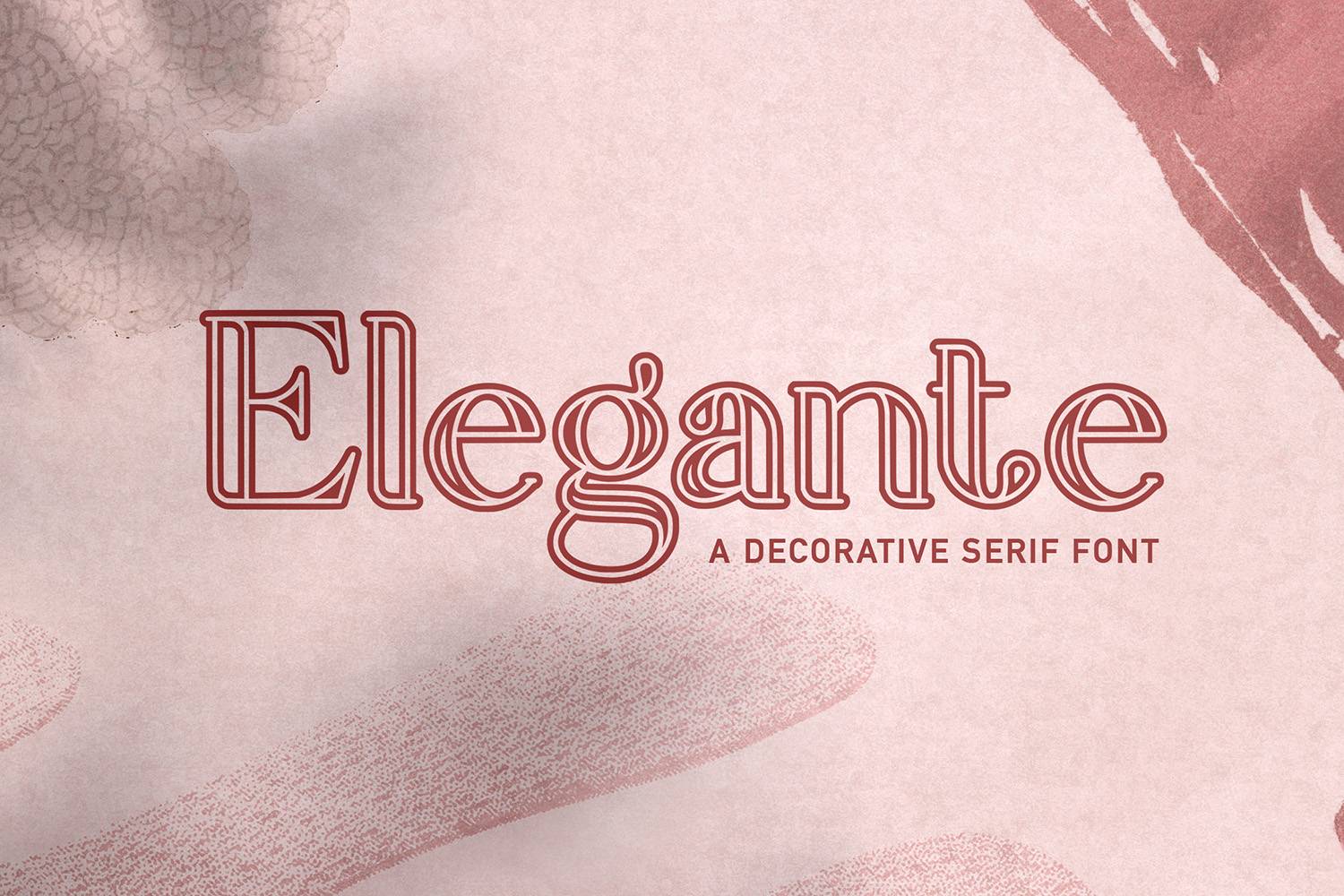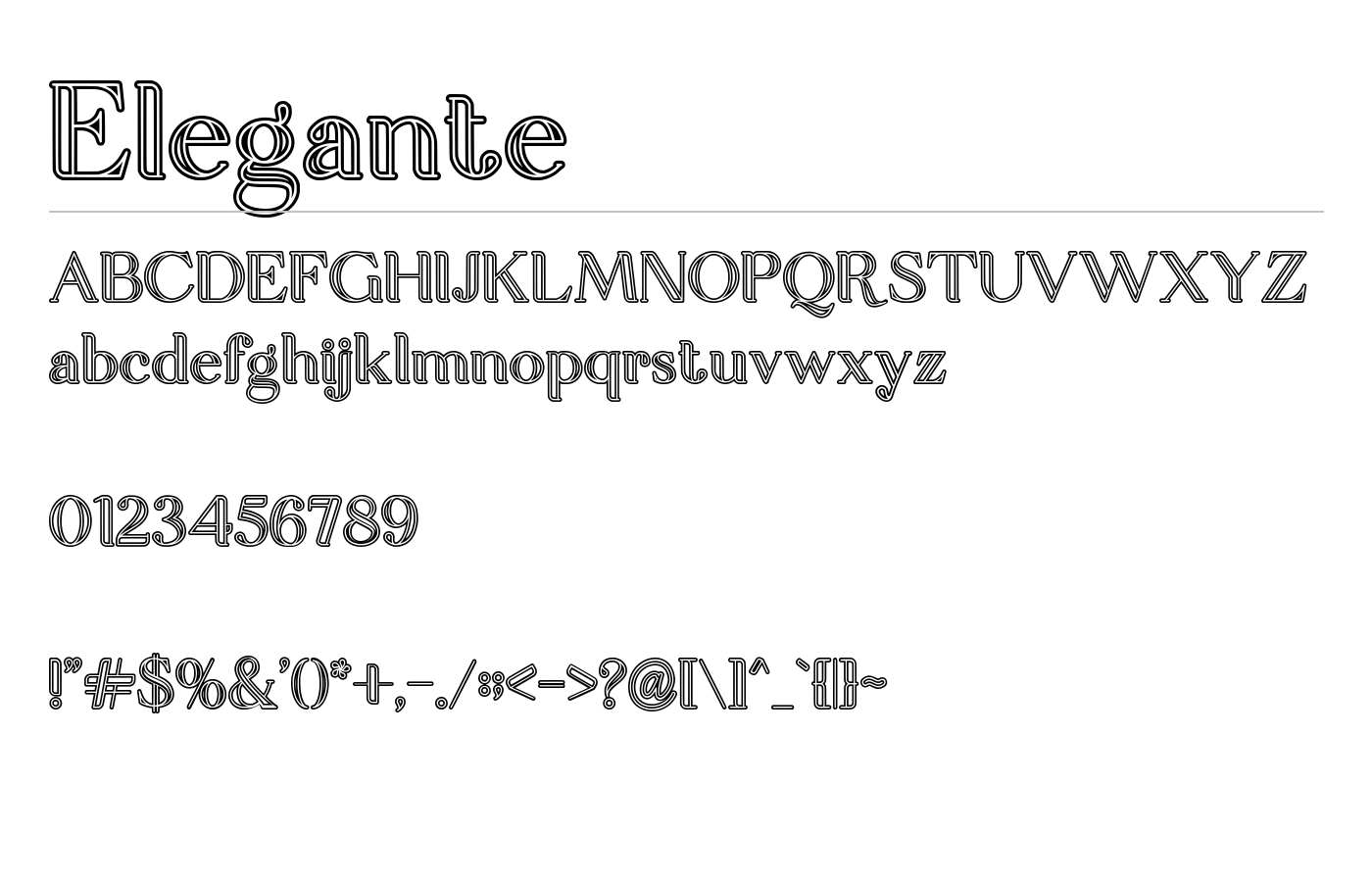
Elegante is a stylish serif font characterized by its delicate, layered outline strokes that create a sophisticated and refined look. With its medium contrast and classic letterforms, including unique decorative details on letters like Q and g, this font exudes a vintage yet elegant charm, perfect for branding, editorial headlines, and luxury packaging. Its airy spacing and clear shapes make it both eye-catching and classy, ideal for designs seeking a timeless and graceful appeal.
Elegante Font